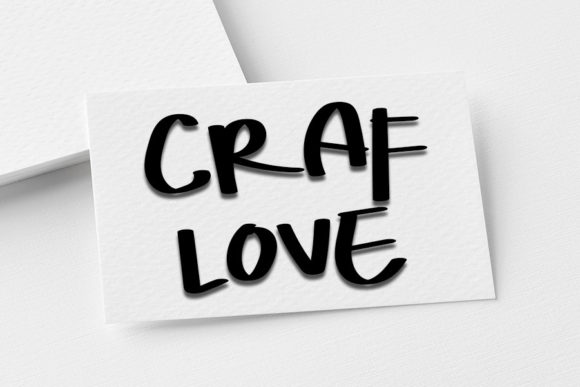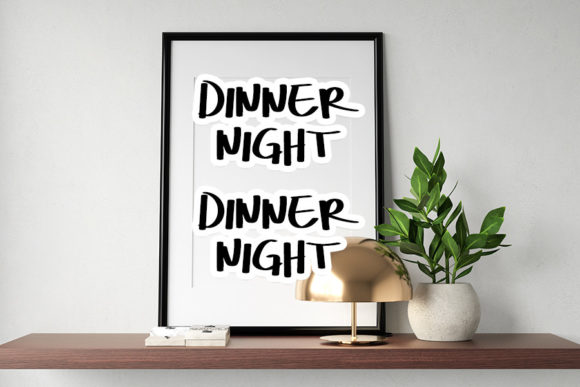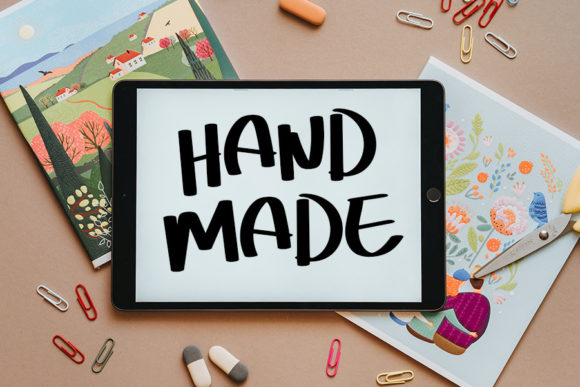
The Designer’s Delight: Ar Bunda Font
I’ll never forget the time I was working on a project for a client who needed a bold and eye-catching font to label their new product line. I scoured the internet for hours, trying to find the perfect fit, but nothing seemed quite right. That was until I stumbled upon Ar Bunda Font. 💡
This cute and modern display font has been a game-changer for me, and I’m excited to share my experience with you. Ar Bunda’s bold and unique style makes it incredibly fitting for a large pool of designs, from labelling to advertising and magazine titles.
• ✅ Bold and unique style that’s sure to grab attention
• ✅ Highly legible, even at smaller sizes
• ✅ Works well for both digital and print designs
• ✅ Easy to pair with other fonts for a cohesive look
• ⚠️ Limited use for body text due to its bold nature
• ⚠️ May not work well for very long titles or headings
The Designer Inspiration Behind Ar Bunda
Ar Bunda was designed with the intention of creating a bold and eye-catching font that would stand out in any design. The designer, inspired by the world of fashion and beauty, aimed to create a font that would evoke a sense of playfulness and sophistication. With its unique style and highly legible design, Ar Bunda has become a go-to font for designers around the world.
Q: Is Ar Bunda suitable for body text?
A: While Ar Bunda is highly legible, its bold nature makes it more suitable for headings and titles rather than body text.
Q: Does Ar Bunda support OpenType features?
A: Yes, Ar Bunda supports OpenType features, including glyphs and stylistic alternates, which can add visual interest to your design.